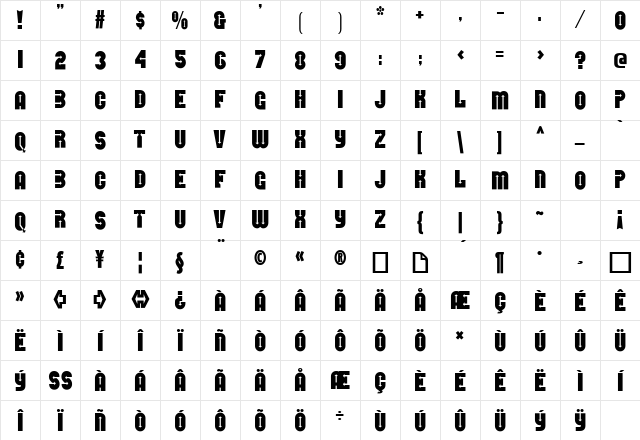
Direction Regular
Direction Family
Design Context for Direction
Direction is a composed and adaptable typeface that performs quietly and consistently across a wide range of design contexts.